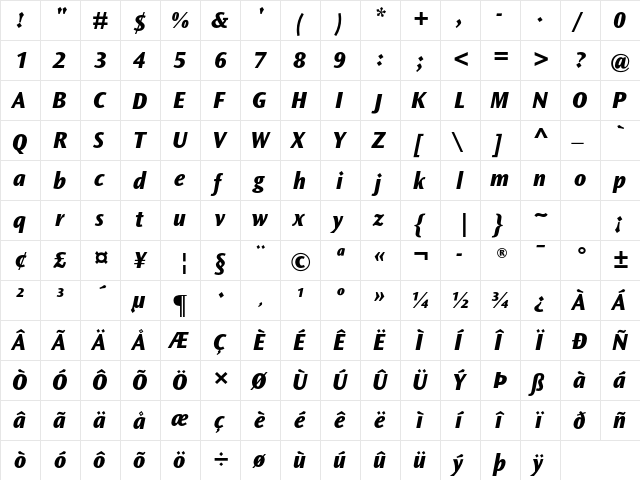
Ocean Sans MT Pro ExtraBold It
| Designer | Chong Wah |
Design Context for Ocean Sans MT Pro Typeface
Ocean Sans MT Pro is a composed and adaptable typeface that performs quietly and consistently across a wide range of design contexts. Its bold stroke weight gives it real presence on the page.